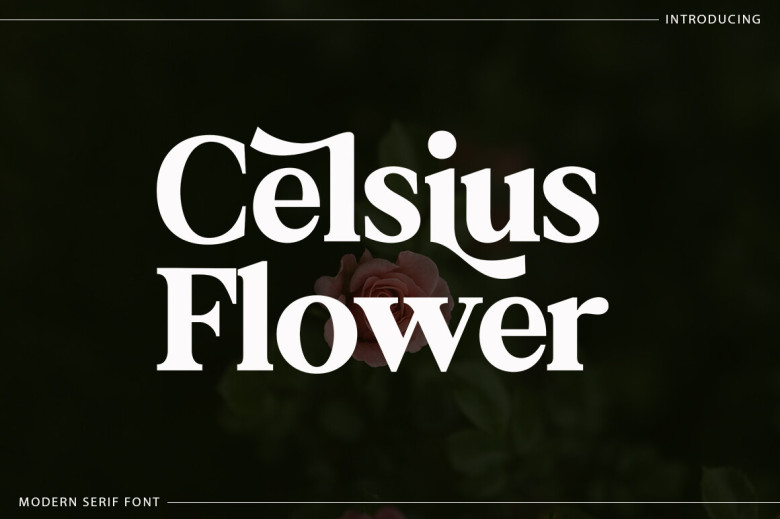
Celsius Flower Font
Celsius Flower offers a typeface that is soft clear, distinctive elegant, contemporary romantic, feminine elegant, beautiful and very easy to read. This classic style makes Celsius Flower suitable for use in various formal designs such as invitations menus labels logos fashion, makeup,
stationery, romantic novels, letterpress, books packaging, magazines, wedding greeting cards, labels and packaging and greeting card packaging etc. Additionally it provides multilingual support. Celsius Flower offers alternative Ligature support as well.
Celsius Flower Serif Font